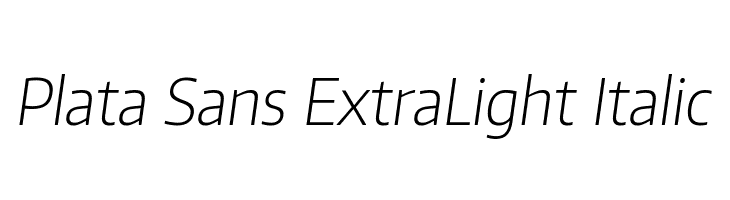
A sleek, extra-light, italic sans-serif font with a modern and elegant style.
A modern, light, italic sans-serif font with clean lines and a dynamic slant.
A sleek, italicized sans-serif font with smooth curves and modern style.
A sleek, light, and italicized font with a modern and minimalist style.
A sleek, minimalist font with thin strokes and a modern geometric style.
A sleek, modern, light italic font with smooth, low-contrast strokes.
A sleek, modern extra light italic font with elegant slanted characters.
A sleek, modern sans-serif font with a light, italic style.
A sleek, modern, light italic sans-serif font with medium contrast.
A clean, modern sans-serif font with excellent legibility.